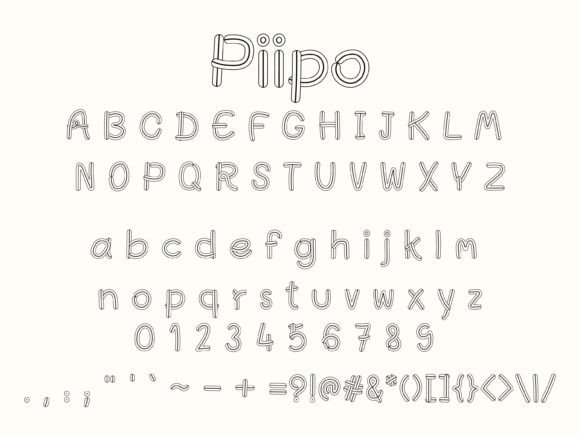
Adorn your projects with the whimsical charm of the Piipo Font! A jubilant display font overflowing with playfulness and joy, Piipo is the perfect companion for any design seeking an infectious touch of delight. Carefully crafted by the talented team at Simple Font, Piipo is more than just a font; it's a celebration of life's most joyous moments.
Picture the enchanting allure of a wedding invitation, where each letter dances upon the page like a confetti of happiness. Piipo's cheerful strokes are like a chorus of laughter, echoing the joy of two hearts embarking on a lifetime of bliss. Its playful nature makes it an ideal choice for any occasion that calls for a dash of merriment, be it a birthday bash, a baby shower, or a summer soiree.
Whether you're designing posters that demand attention or website banners that radiate warmth, Piipo is your trusty ally. Its captivating curves and cheerful disposition are guaranteed to leave an indelible mark on your audience. Imagine your social media posts bursting with vibrancy, capturing the hearts of your followers with every playful twist and twirl of Piipo's characters.
With Piipo at your fingertips, you'll never again struggle to convey the sheer joy of life. Its energetic strokes are like tiny sparks of happiness, igniting a smile on the face of every beholder. Join the Piipo revolution and unleash the power of unbridled joy in your designs. Let your creativity soar and embrace the playful spirit of this enchanting display font.